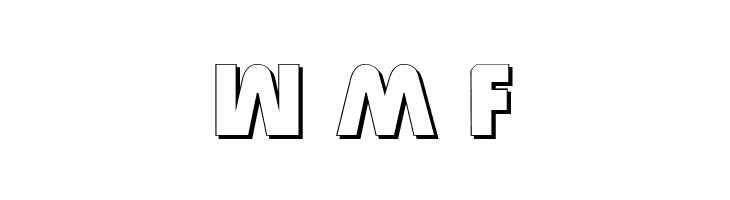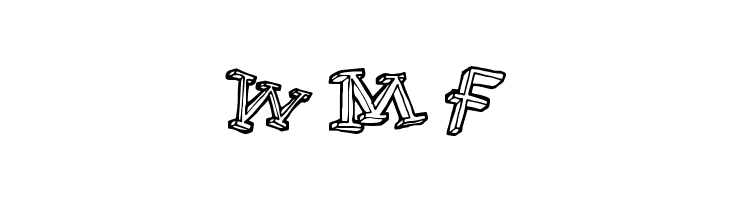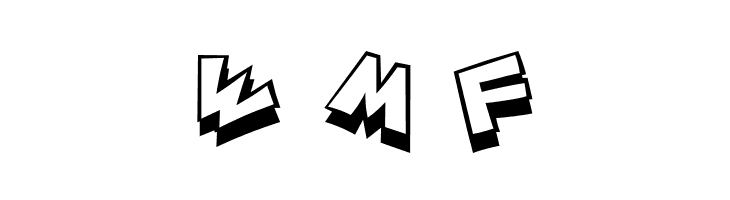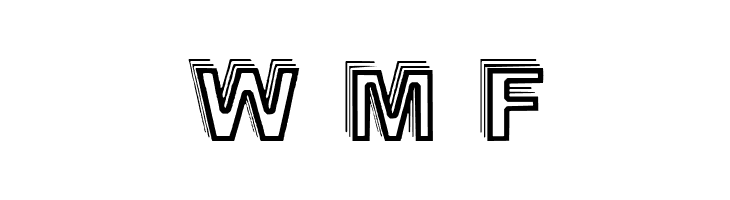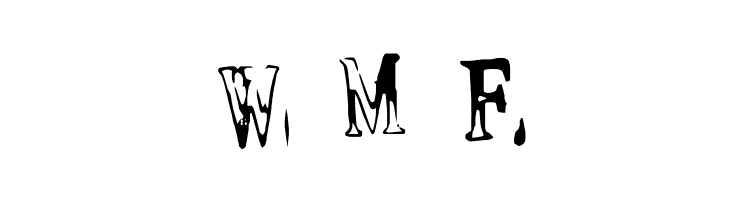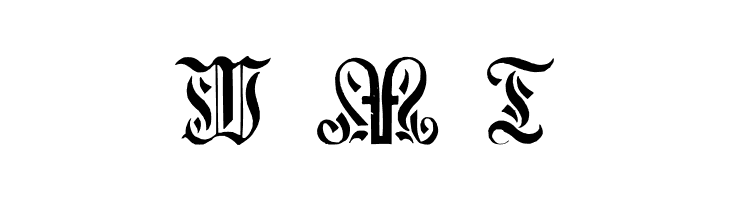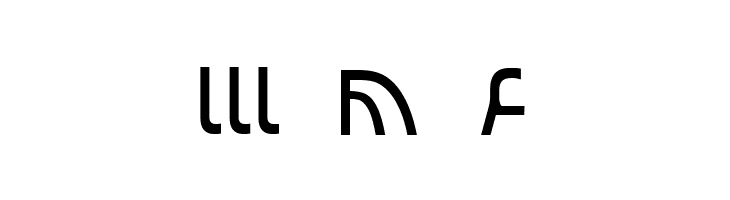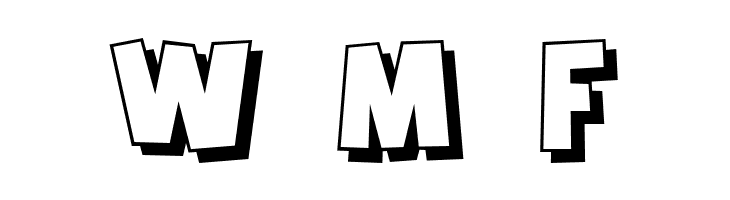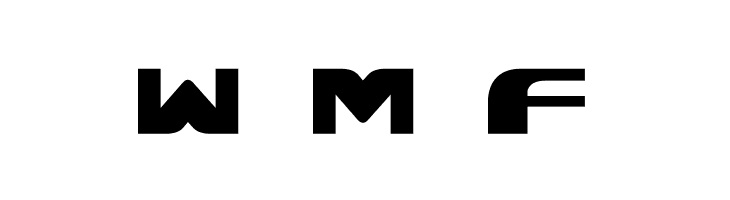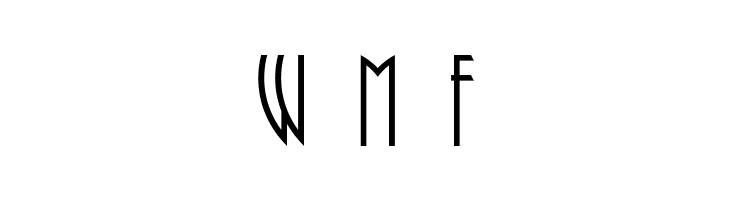
A bold, modern outline font with a three-dimensional effect.
A bold, three-dimensional geometric font inspired by cubism.
A futuristic, geometric outline font with a layered, three-dimensional appearance.
A bold, cartoonish font with a playful, three-dimensional effect.
A bold, playful font with a 3D effect and dynamic style.
A bold, shadowed font with a three-dimensional effect, ideal for impactful designs.
A distressed, grungy font with bold, textured characters.
A geometric, three-dimensional font with a modern, futuristic style.
A bold, futuristic italic font with geometric precision and dynamic style.
A bold, decorative font with a three-dimensional outline effect.
Bold, shadowed font with a modern, three-dimensional look.
A futuristic, bold, and rounded font with a three-dimensional outline.
A bold, outlined font with a playful and three-dimensional appearance.
Elegant capital letters with a focus on symmetry and geometric precision.
A playful, cartoon-like font with exaggerated, humorous characters.
A bold, three-dimensional font with a strong shadow effect and geometric forms.
A bold, playful font with a 3D shadow effect and blocky characters.
A futuristic, geometric font with bold, interconnected lines and a three-dimensional appearance.
A bold, retro font with a playful, three-dimensional outline effect.
A bold, playful font with a three-dimensional, bubble-like appearance.
A modern, elongated font with geometric precision and high symmetry.
A decorative font with letters inside turkey silhouettes, ideal for festive themes.
A bold, three-dimensional font with angular, geometric shapes and strong contrast.
A retro, pixelated font inspired by early video game graphics.
A bold, three-dimensional font with a playful, striped design.
A bold, distressed font with a hand-painted, artistic style.